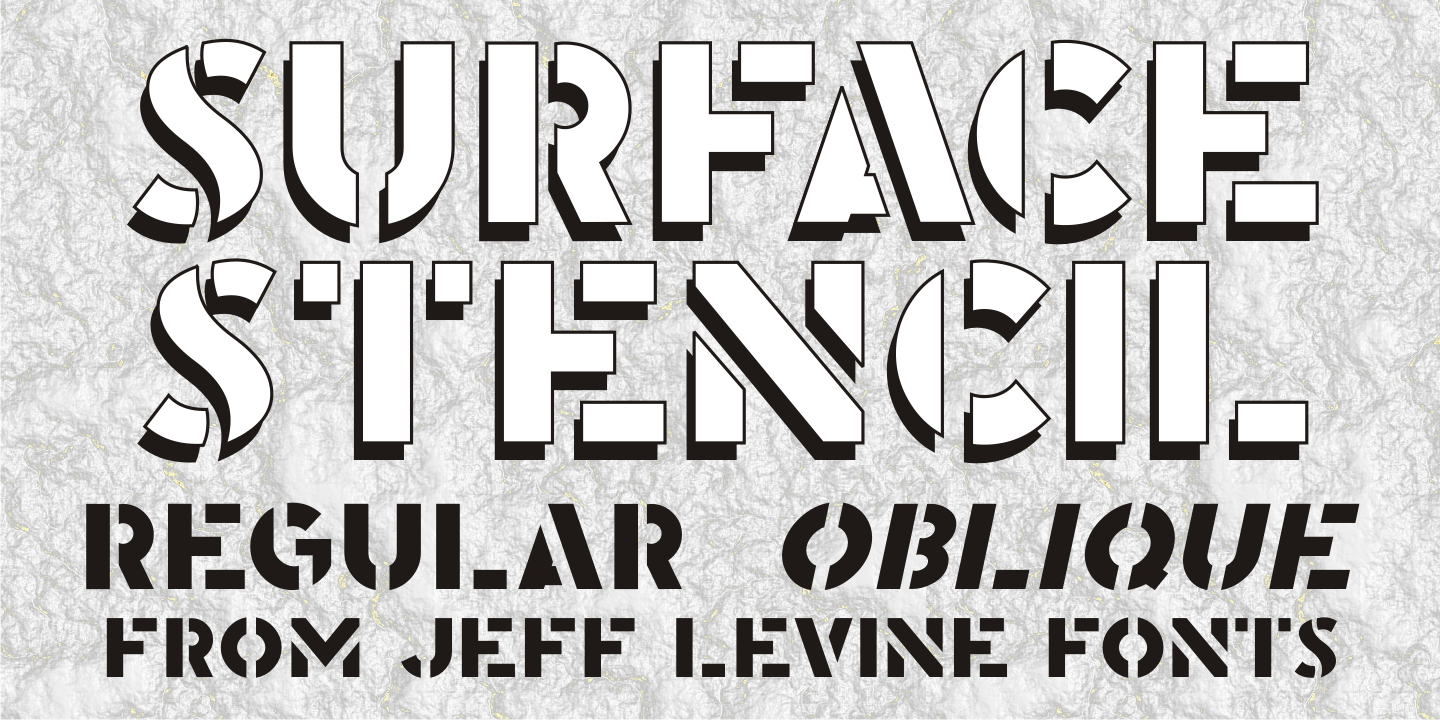
Surface Stencil
A hand-cut antique brass stencil for marking barrel tops of dill pickles was the source of inspiration for Surface Stencil JNL, available in both regular and oblique versions.
Surface Stencil JNL Regular by Jeff Levine Fonts